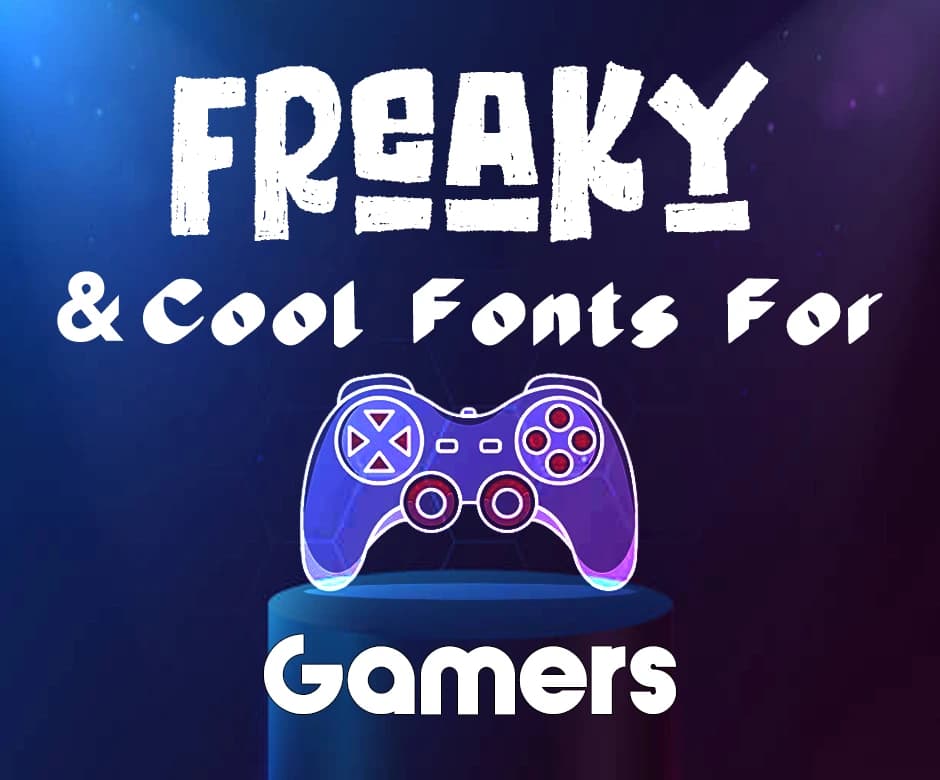
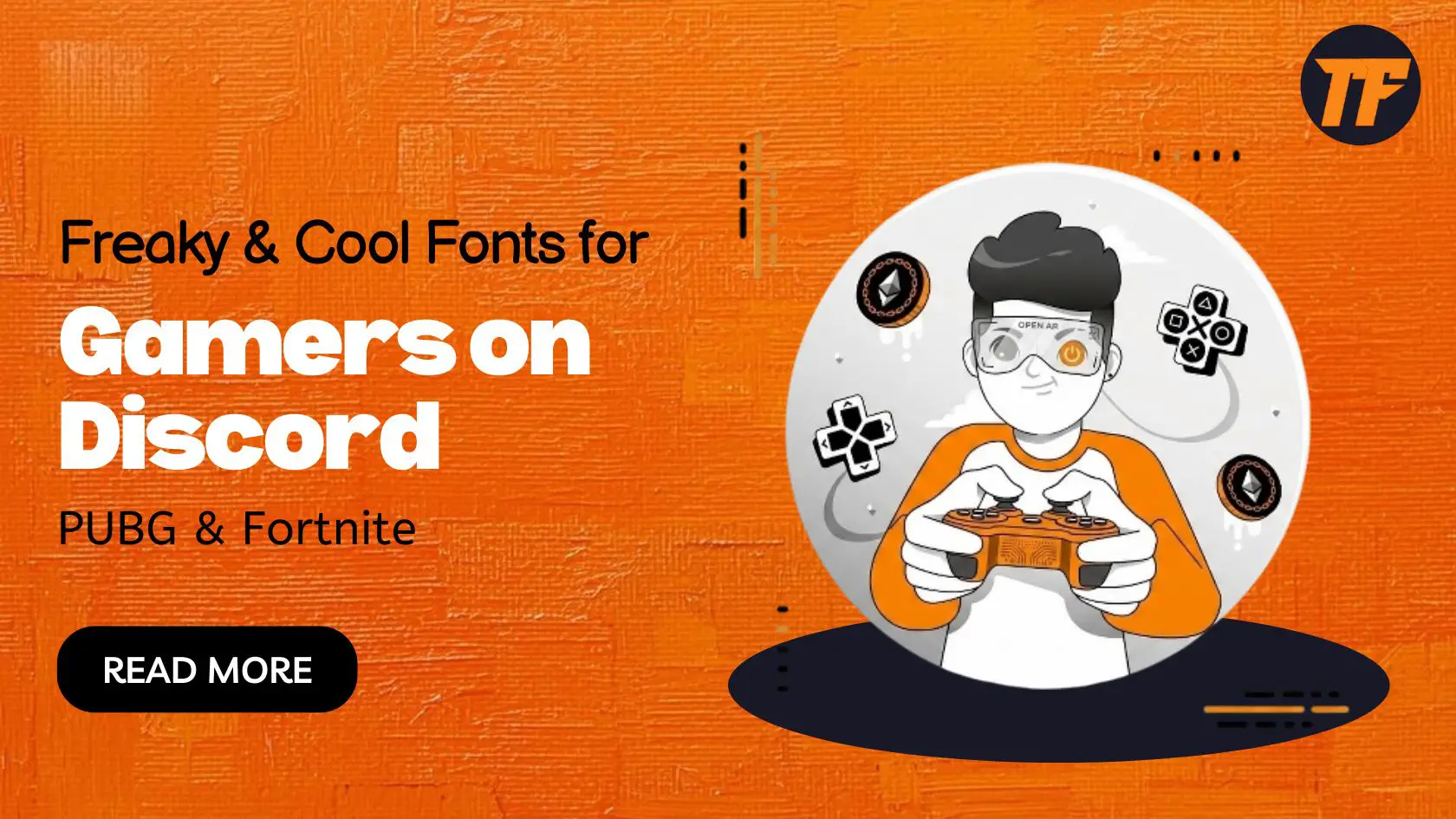
In gaming, having a unique style can make you stand out. One easy way to do this is by using different fonts for your usernames, clan tags, or profiles. Fonts can make your name look cool, edgy, or even a little freaky, depending on the style you choose.
Whether you are chatting on Discord, playing PUBG, or showing off in Fortnite, the right font can show your personality and make your profile more noticeable.
In this article, we will look at some of the best freaky and cool fonts that gamers can use. Let’s start.
Freaky and cool fonts are styles of text that look different from normal fonts. Freaky fonts often look strange, spooky, or unusual. They might have sharp edges, glitches, or shapes that make them look scary or mysterious.
Cool fonts are stylish and eye-catching. They can look modern, bold, or playful, and are often used to make names or messages stand out.
Gamers use these fonts to make their usernames, tags, or profiles more interesting. These fonts are popular on platforms like Discord, PUBG, and Fortnite because they help players show their personality.
Gamers love using different fonts to make their names, tags, or profiles stand out. Here are five of the best freaky and cool font styles you can try on Discord, PUBG, and Fortnite:
Glitch fonts look broken, distorted, or digital. They often appear as if the letters are cracked, shifted, or flickering, giving your name a high-tech or slightly eerie vibe.
These fonts are perfect for players who want a modern, edgy, or “freaky” look that stands out in chats, leaderboards, and game profiles.
Glitch fonts work well for gamers who like sci-fi, cyberpunk, or competitive game aesthetics, adding a bold and attention-grabbing touch to usernames and clan tags.
How to Use in Discord
Use it in your username to grab attention in chats.
Apply it to server nicknames to show your personality in specific communities.
Use it in status messages or bios for a unique digital vibe.
How to Use in PUBG
Style your player name with glitch fonts to look edgy in matches.
Use it for your clan or team tags to stand out in leaderboards.
Add it to chat messages for a unique in-game identity.
How to Use in Fortnite
Use glitch fonts in your display name for a bold profile look.
Style your party or squad names to make your group recognizable.
Add it to social media posts/screenshots of Fortnite gameplay for extra flair.
Bold and modern fonts are thick, clean, and stylish. They are easy to read and give your name a strong, confident look. These fonts are ideal for gamers who want to appear professional, sleek, or powerful in their profiles.
Bold fonts can make your username or clan name highly visible in chats and leaderboards, while modern fonts often have a minimalistic, sharp look that matches the aesthetic of competitive games like PUBG and Fortnite.
They work well for both casual and serious gamers.
How to Use on Discord
Use it in your main username for a clear, standout identity.
Apply it to role names or nicknames in servers.
Style important announcements or pinned messages for visibility.
How to Use in PUBG
Use bold fonts for your player name to make it easy to spot in matches.
Apply it to your team or squad name for a unified look.
Highlight special titles or clan tags in tournaments.
How to Use in Fortnite
Style your display name for a clean, professional profile.
Use it for party names to show a modern team vibe.
Apply it to custom banners or social posts for sleek visuals.
Creep or horror fonts look spooky, jagged, or sharp. They are designed to give a mysterious, creepy, or edgy impression. These fonts are perfect for players who enjoy horror games, want to create a dark gamer persona, or like standing out with an unusual style.
Horror fonts work especially well during themed events, like Halloween, or for gamers who want their clan or player name to appear intimidating. They create a strong, memorable impression in chats, in-game leaderboards, and streaming profiles.
How to Use in Discord
Use it in server nicknames to give a spooky effect.
Apply it in status messages or bios during Halloween or horror events.
Style your username for a creepy, attention-grabbing look.
How to Use in PUBG
Use horror fonts for player names in battle matches.
Style clan names to appear intimidating on leaderboards.
Apply it in chat messages for a creepy, fun effect.
How to Use in Fortnite
Use it in display names for a horror-themed profile.
Apply it to party or squad names for dramatic flair.
Use it on screenshots or social posts for a spooky vibe.
Cursive and fancy fonts are smooth, flowing, and stylish. They give a playful, elegant, or creative look to your names and messages. These fonts are perfect for casual gamers, content creators, or anyone who wants a stylish, friendly presence.
Cursive fonts can make your username, party name, or clan tag look unique and artistic, while fancy fonts add charm and flair.
They are great for building a memorable profile or showing a softer, creative side in gaming communities.
How to Use in Discord
Use it in a username or nickname for a stylish, friendly appearance.
Apply it to server roles or descriptions for decorative text.
Style your status messages or bios for a soft, unique look.
How to Use in PUBG
Use it in player names for a fancy, standout identity.
Style team or squad names to look elegant yet playful.
Apply it in chat messages for a unique, creative feel.
How to Use in Fortnite
Use cursive fonts in display names for a stylish profile.
Style party or squad names with elegant text for a fun effect.
Add it to social media screenshots or posts to show creativity.
Symbol and fancy mix fonts combine letters with symbols, special characters, or unique shapes. They create one-of-a-kind names that are bold, memorable, and highly creative.
These fonts are ideal for gamers who want to stand out on every platform and make their usernames or clan tags completely unique.
Symbol fonts work well for building a signature style, giving your profile personality, and making you instantly recognizable in Discord, PUBG, and Fortnite.
How to Use in Discord
Use it in a username or nickname for maximum uniqueness.
Apply it to server tags or special roles for creative flair.
Style status messages or bios with fun symbols for personality.
How to Use in PUBG
Use it in player names to stand out in matches and leaderboards.
Style clan or team names with symbols for originality.
Apply it in chat messages to show off a personal style.
How to Use in Fortnite
Use it in display names for a bold, unique identity.
Style party or squad names with special characters for impact.
Add it to screenshots or social posts to make your name memorable.
Creating freaky and cool fonts for Discord, PUBG, and Fortnite has become a lot easier with Text to Font. If you’re looking for a convenient way to generate stylish text, this is the right tool for you.
It comes with multiple integrated tools that let you create stylish, freaky, and other font styles within a matter of seconds.
Here’s how you can use it:
First of all, open the official website of the platform.
Then, select a relevant category of tool that you want to use.
Enter your plain text in the designated box.
The tool will convert its style instantly.
Then copy any style you want and use it on Discord, PUBG, or Fortnite.
Here are some tips that you can follow for using freaky and cool fonts:
Keep it readable: Choose fonts that are clear so others can easily read your name or messages.
Match the game or theme: Use spooky fonts for horror games, bold fonts for competitive games, and fancy fonts for casual or creative games.
Don’t overuse fonts: Stick to one or two font styles for usernames, clan tags, or messages.
Test across devices: Make sure your font looks good on PC, console, and mobile.
Highlight important text: Use special fonts for usernames, clan names, or special messages, not every chat line.
Freaky and cool fonts are a simple way to make your gaming profile stand out on Discord, PUBG, and Fortnite. They let you show personality, style, and creativity through your usernames, clan tags, and messages.
By choosing the right font and using it thoughtfully, you can make your profile more memorable and fun. Experiment with different styles, follow the tips for readability and consistency, and enjoy creating a unique look that reflects your gaming identity.
Yes! You can copy any font from a generator and paste it as your Discord username or nickname. It will make your profile stand out in servers.
Most fonts work in these games, especially for player names, clan tags, or squad names. Some very fancy symbols might not show correctly, so testing is recommended.
Try mixing a cool font with symbols or special characters. You can also combine two different font styles for a creative effect.
No, using too many fonts can look messy. Stick to one or two styles for your username, clan tag, or important messages for the best effect.